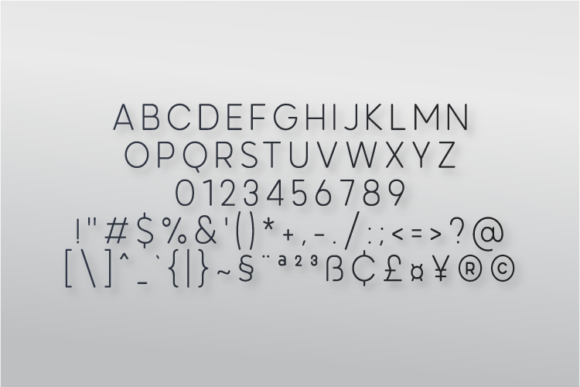
Introduction to Naville Font
As a designer, you’ve probably found yourself stuck in the middle of a creative project, staring at a blank canvas, and desperately searching for the perfect font to bring your vision to life. You scroll through countless options, but none seem to capture the essence of your idea. That’s when you stumble upon the Naville Font, a simple yet elegant sans serif typeface that instantly sparks inspiration.
The Naville Font is more than just a design resource; it’s a game-changer. Its clean and beautiful arrangement of letters makes it an ideal choice for both formal and non-formal designs. Whether you’re working on a high-profile project or a personal creative endeavor, this font is sure to elevate your design to the next level. Plus, with its transparent background, you can easily integrate it into any project, making it a valuable addition to your design arsenal.
Key Features of Naville Font
- High-quality design for creative projects: Naville Font is perfect for designers looking for a unique and elegant font to enhance their designs.
- Transparent background: The font has a transparent background, making it easy to use on any design project without any distractions.
- High-resolution design: Naville Font is designed at a high resolution, making it perfect for use in large-scale designs, such as billboards and posters.
- Unique characteristics: The font features a unique and elegant design, with subtle curves and lines that add a touch of sophistication to any design project.
- Perfect for design resources: Naville Font is an excellent addition to any designer’s toolkit, providing a high-quality and versatile font for a variety of creative projects.
Honest Review: Naville Font
I recently had the chance to work with the Naville Font, and I must say it’s been a game-changer for my creative projects. As a designer, I’m always on the lookout for high-quality fonts that can elevate my designs and make them stand out.
One of the things I love about the Naville Font is its versatility. It’s perfect for a wide range of creative projects, from logo design to typography-based art. The font is also super easy to customize, which is a big plus in my book. ✨
- High-quality design: The Naville Font is a beautiful, well-crafted font that’s perfect for any design project.
- Easy to customize: With the Naville Font, you can easily adjust the size, color, and style to fit your design needs.
- Transparent background: The font is available with a transparent background, which makes it easy to use in a variety of design scenarios.
However, I do have a few criticisms. The Naville Font is not suitable for very small font sizes, and it can be a bit difficult to read in certain situations. ⚠️
Overall, I’m really impressed with the Naville Font. It’s a high-quality design resource that’s perfect for any creative project. With its versatility, ease of customization, and free download option, it’s a great choice for designers of all levels.
The Naville Font is a versatile and elegant design resource that can elevate any creative project. With its high-quality, modern design, this font is perfect for designers and artists looking for a unique and sophisticated look.
Tips for Getting the Most Out of Naville Font
To get the most out of the Naville Font, be sure to:
- Use it with a transparent background to create a modern and sleek look.